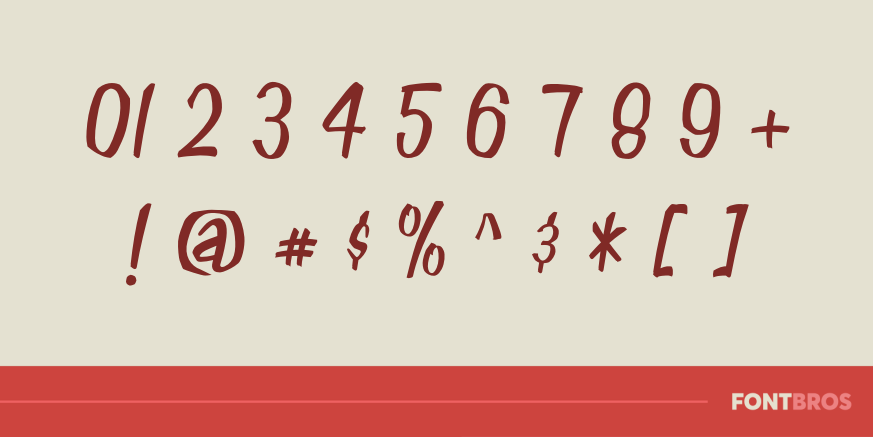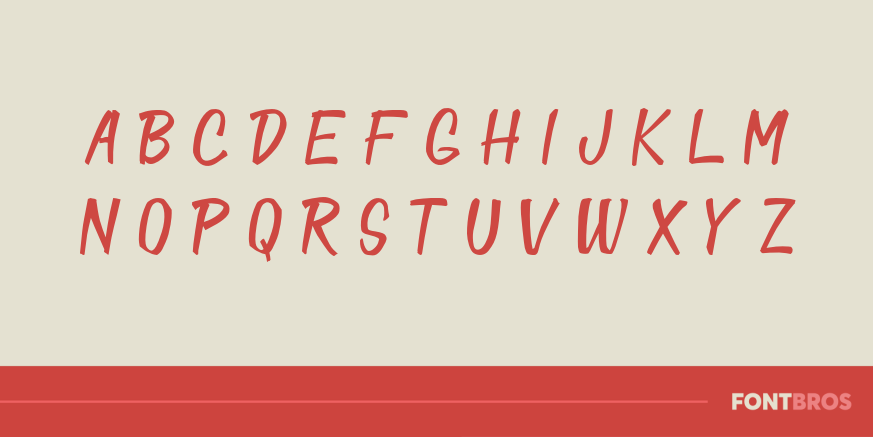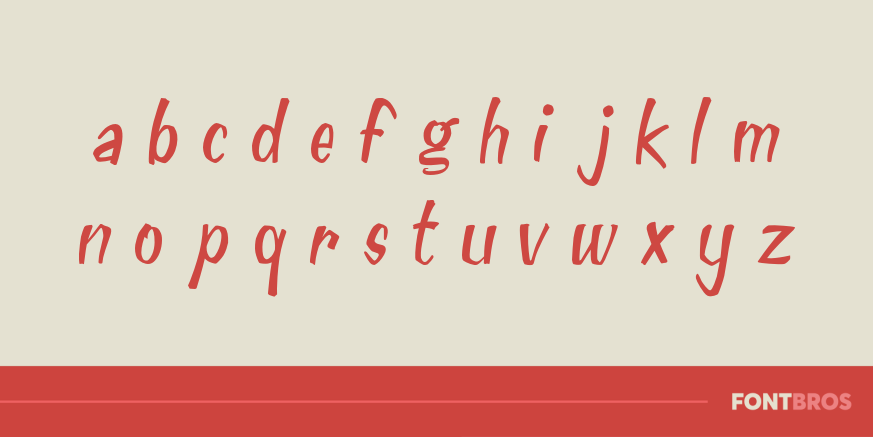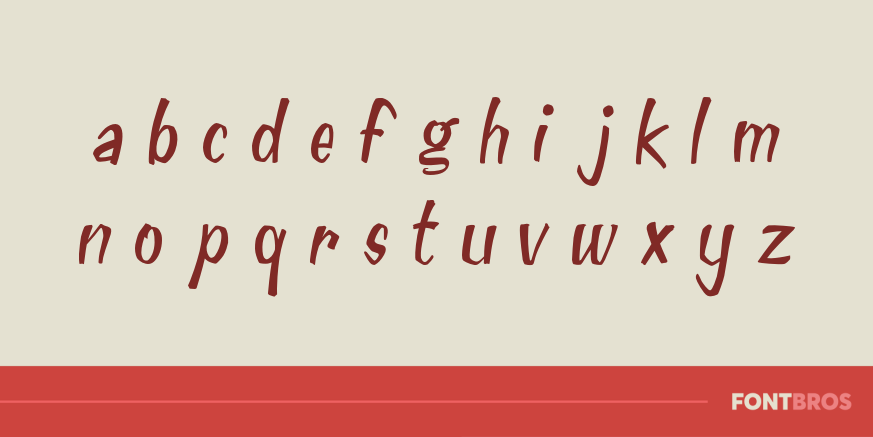
Doggie Bag Script
Font Family by Font Diner
When you can't eat any more, bring some home for Rover! It's Doggie Bag Script! A tasty brush lettered signpainter's script!